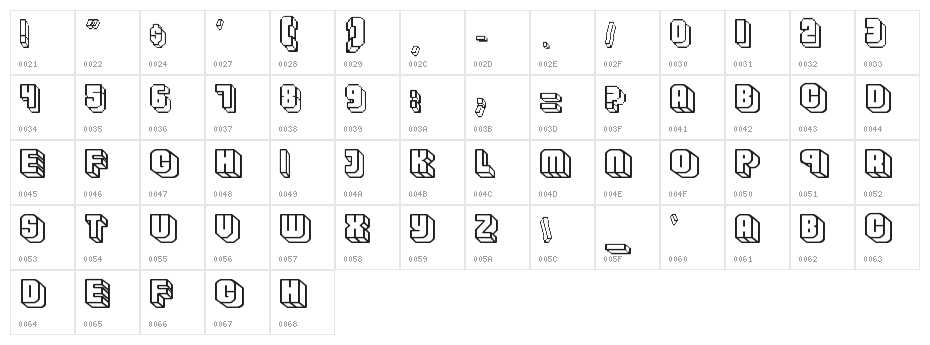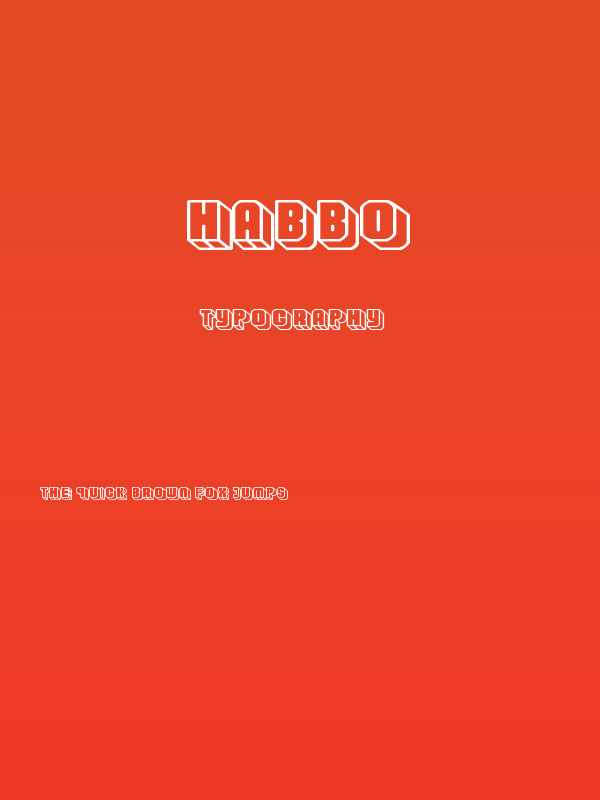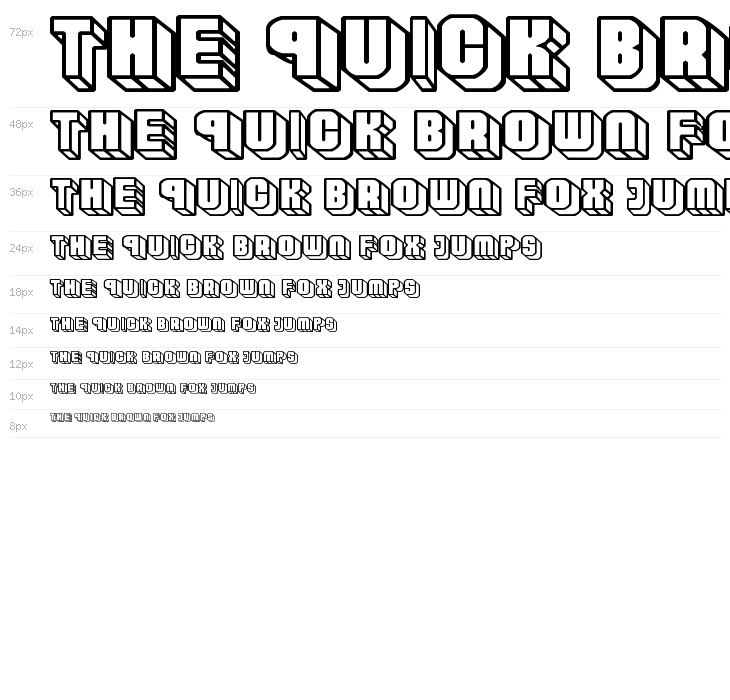
Habbo Font
Habbo Description
This font features a bold, three-dimensional block style with a playful and eye-catching design. Each character is outlined with a thick black line, creating a strong contrast against the white interior. The letters and numbers have a uniform height and width, giving the font a cohesive and structured appearance. The 3D effect is achieved through shadowing on the right side of each character, adding depth and a sense of movement. This font is ideal for projects that require a fun and dynamic look, such as posters, video game graphics, or children's book covers.
| Overall Style | Playful, Dynamic |
| Proposed Projects | Ideal for video game graphics, posters, children's books, and playful branding. |